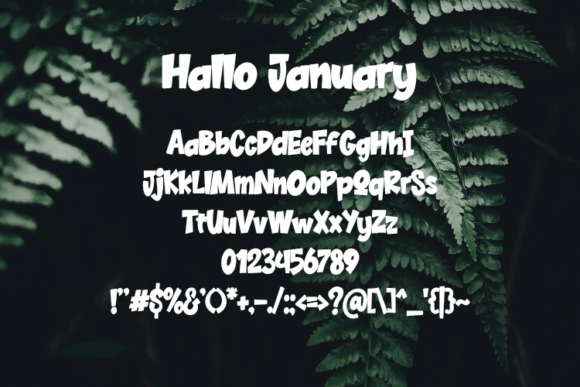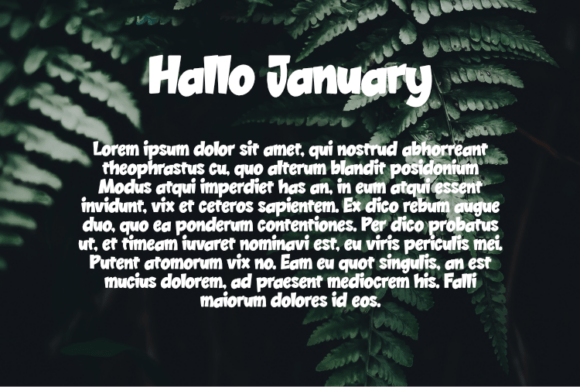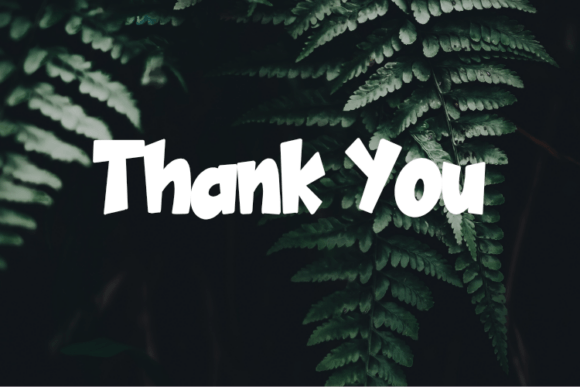
Step into the New Year with Hallo January Font: Elevate Your Designs with Style
As we welcome the new year, designers and crafters are on the lookout for fresh and exciting fonts to elevate their creative projects. If you’re searching for a typeface that makes a bold statement, look no further than Hallo January. This versatile font is irresistibly stylish, bringing a unique touch to everything from clothing designs to t-shirt graphics, and is sure to become a staple in your design toolkit.
The Versatility of Hallo January
Hallo January is more than just a font – it’s a design statement. Its unique style is perfect for a wide range of applications, from minimalist designs to bold aesthetics. Whether you’re creating clothing designs, t-shirt graphics, or any other type of visual project, Hallo January is the perfect choice. Its versatility ensures that it can be used in various contexts, making it an excellent addition to your font collection.
Bring Your Creative Vision to Life
With Hallo January, you can harness its potential to elevate your projects and bring your creative vision to life. This dynamic font is perfect for designers and crafters who want to add a touch of style and sophistication to their work. Whether you’re creating designs for personal use or for clients, Hallo January is sure to impress. Its unique style and versatility make it an excellent choice for a wide range of projects.
Perfect for Minimalist Styles and Bold Aesthetics
One of the best things about Hallo January is its adaptability. Whether you’re into minimalist styles or bold aesthetics, this font fits all. Its clean lines and elegant curves make it perfect for minimalist designs, while its bold and striking appearance is ideal for more dramatic aesthetics. This versatility ensures that Hallo January can be used in a variety of contexts, making it an excellent addition to your design toolkit.
Why Choose Hallo January?
So, why choose Hallo January over other fonts? Here are just a few reasons:
- Unique Style: Hallo January has a unique and stylish appearance that’s sure to make your designs stand out.
- Versatility: This font is perfect for a wide range of applications, from clothing designs to t-shirt graphics.
If you’re looking for a font that will take your designs to the next level, Hallo January is the perfect choice. Its unique style, versatility, and compatibility make it an excellent addition to your design toolkit. Whether you’re a designer, crafter, or DIY enthusiast, Hallo January is sure to become a staple in your creative projects. So, step into the new year with Hallo January and get ready to elevate your designs with style.
In conclusion, Hallo January is a dynamic font that’s perfect for designers and crafters who want to add a touch of style and sophistication to their work. Its unique style, versatility, and compatibility make it an excellent choice for a wide range of projects. Whether you’re into minimalist styles or bold aesthetics, Hallo January is sure to impress. So, why wait? Download Hallo January today and start elevating your designs with style.